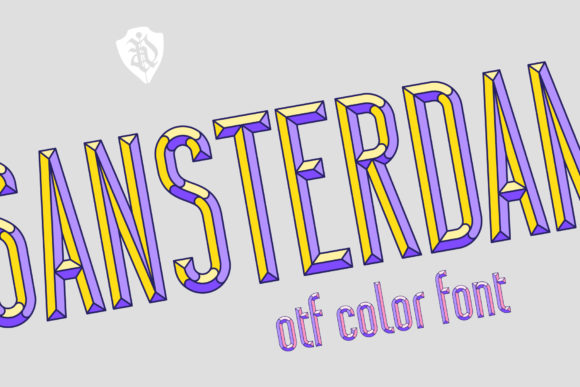
Introducing Sansterdam Font, the kaleidoscope of colors that will ignite your digital creations! This two-in-one font sensation, crafted by the visionary NREY, is a mesmerizing blend of condensed geometric forms and vibrant hues, ready to transport your designs to a whole new dimension.
With Sansterdam, the ordinary becomes extraordinary. Its regular font exudes a crisp, modern aesthetic, while its color font counterpart unleashes a symphony of colors, transforming your words into captivating works of art. It's like having a rainbow at your fingertips, ready to paint your digital canvas with boundless creativity.
Sansterdam is not just a font; it's an experience. Its condensed and geometric structure lends a touch of elegance and sophistication, while the color font adds a playful and dynamic energy, perfect for making your designs pop. Whether you're crafting logos, social media graphics, website headers, or eye-catching posters, Sansterdam will elevate your creations to new heights.
Don't settle for ordinary fonts. Embrace the colorful revolution with Sansterdam. Let your words dance with hues, let your designs shine with brilliance, and let your creativity soar to new heights. Sansterdam is more than just a font; it's a gateway to a world of visual enchantment.